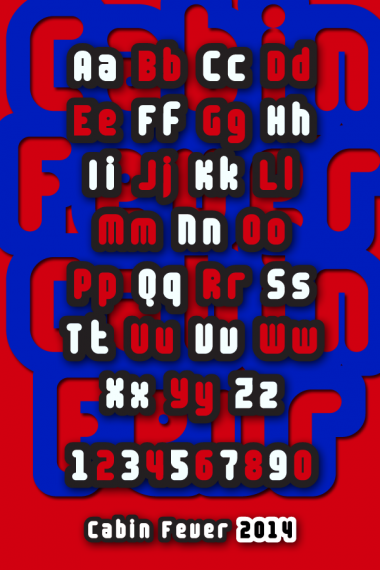
Cabin Fever
Nudged to its limits, Cabin Fever is a small-grid fontstruction with an x-height of 2.75 bricks and bold overlapping outlines.
Great work - especially on such a small grid.
Whaat a font!